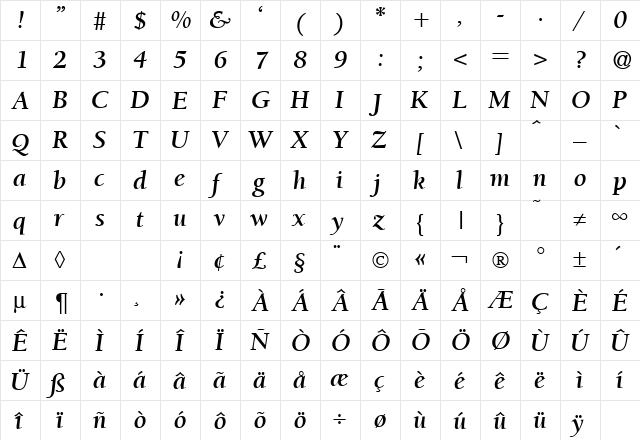
BergmannOldStyle BoldItalic Font Preview
BergmannOldStyle BoldItalic
BergmannOldStyle BoldItalic Font Details
Design Context for BergmannOldStyle Typeface
BergmannOldStyle brings classic typographic sensibility to the table — its serifs and measured letterforms reflect centuries of print heritage. The slanted form adds forward momentum and visual energy. The heavy weight commands attention and anchors typographic hierarchies.